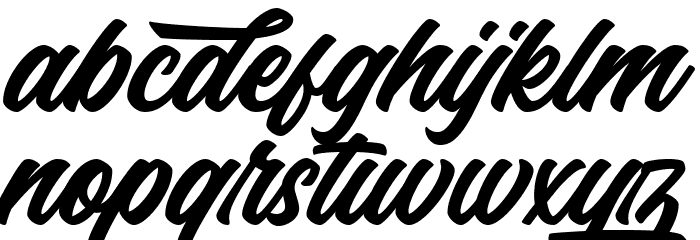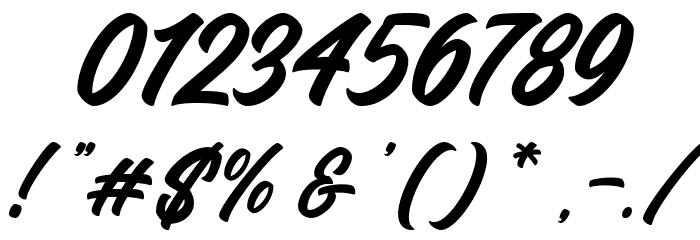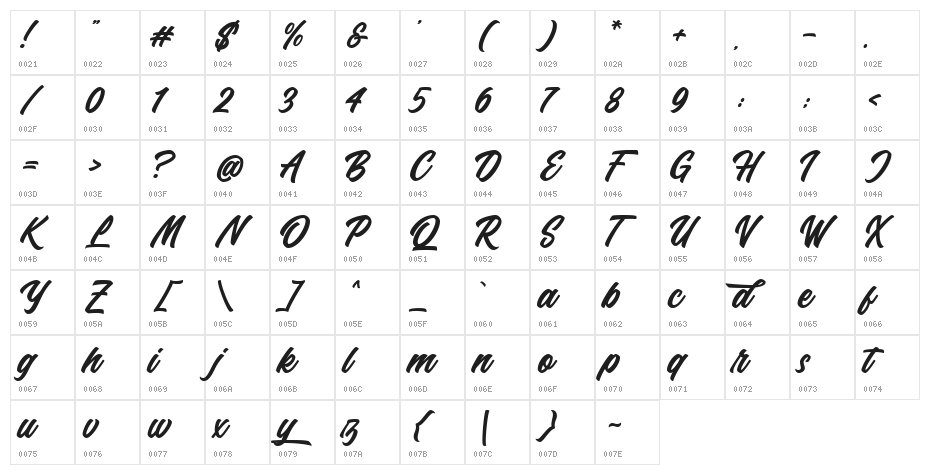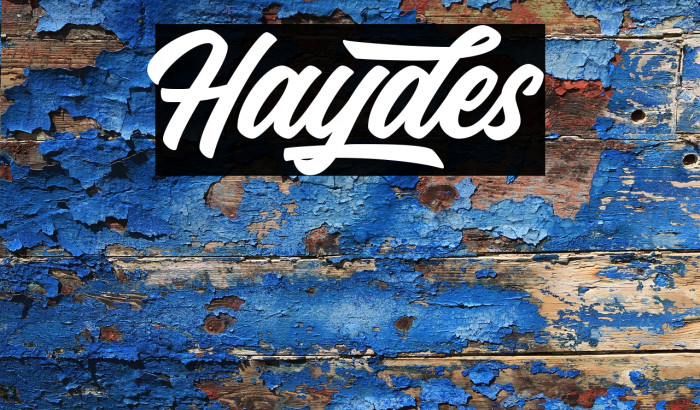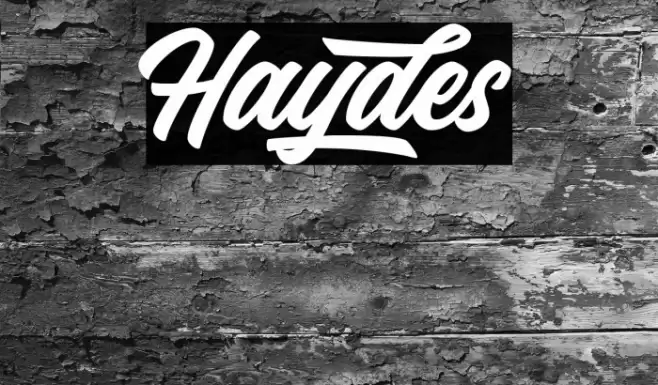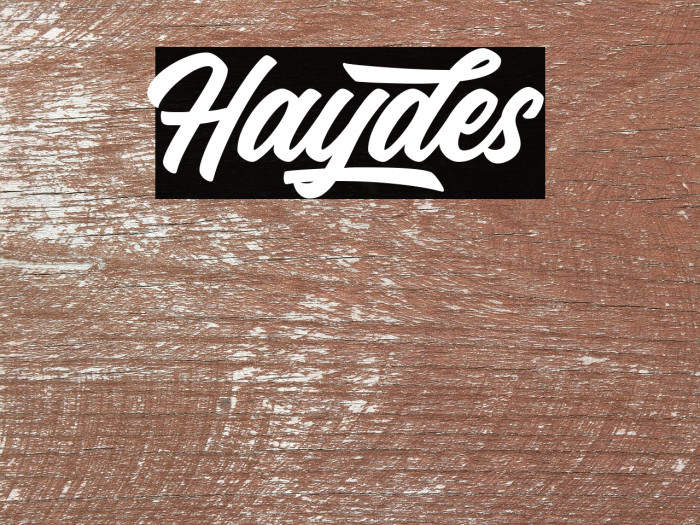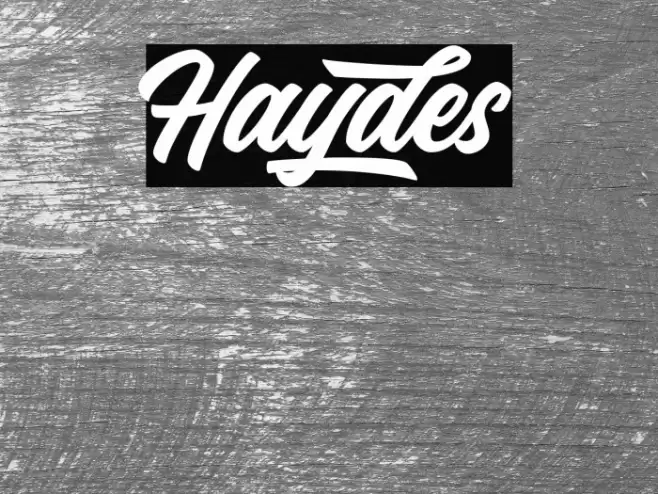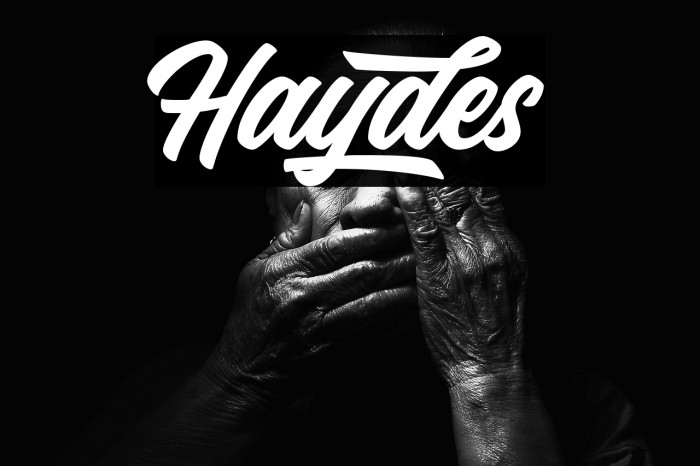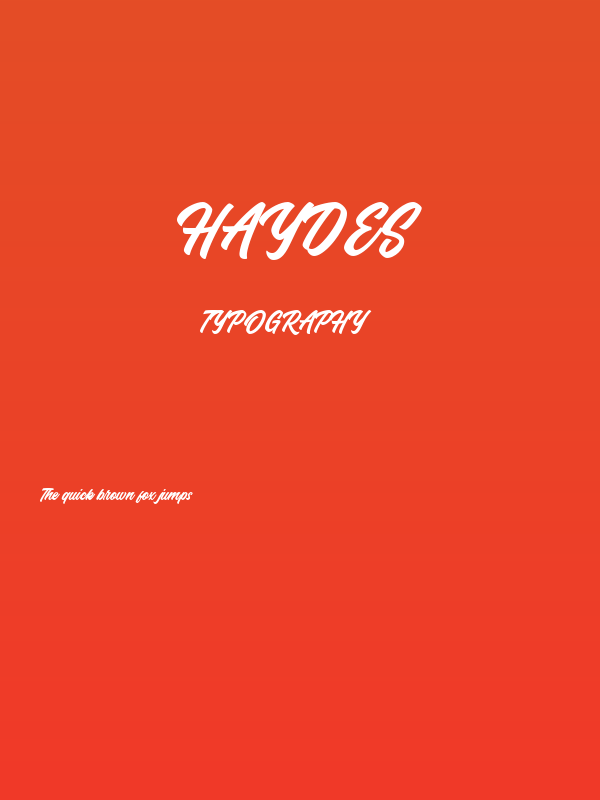
Haydes Font
This font features a bold, cursive style with a strong emphasis on fluidity and movement. The uppercase letters are elegantly slanted, giving a sense of dynamism and flair. The lowercase letters maintain a consistent flow, with some characters featuring distinctive loops and swashes that enhance the overall aesthetic. The numerals are bold and clear, matching the style of the letters. Special characters are included, maintaining the same bold and expressive style. This font is ideal for projects that require a touch of elegance and personality.
A bold, cursive font with dynamic slanted letters and expressive swashes.
- Font: Haydes
- Proposed Projects: Perfect for branding, invitations, and creative design projects that require a personal touch.
- Use Case: Logos, Invitations, Branding